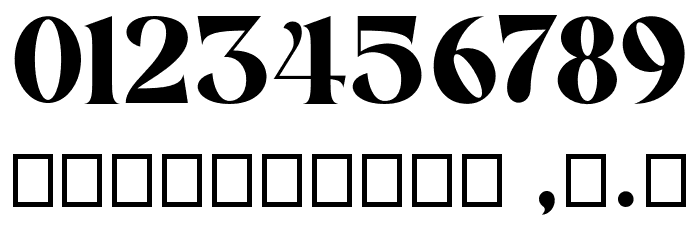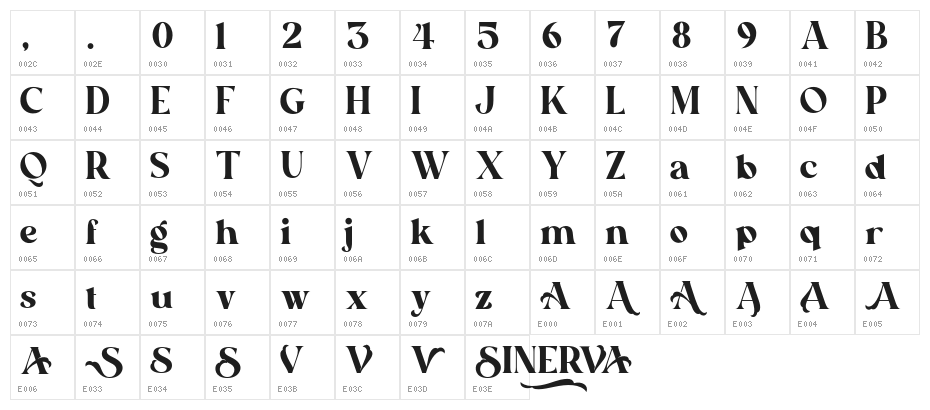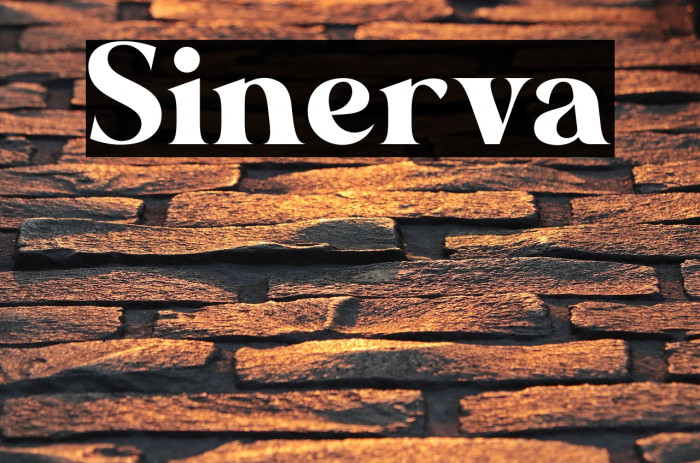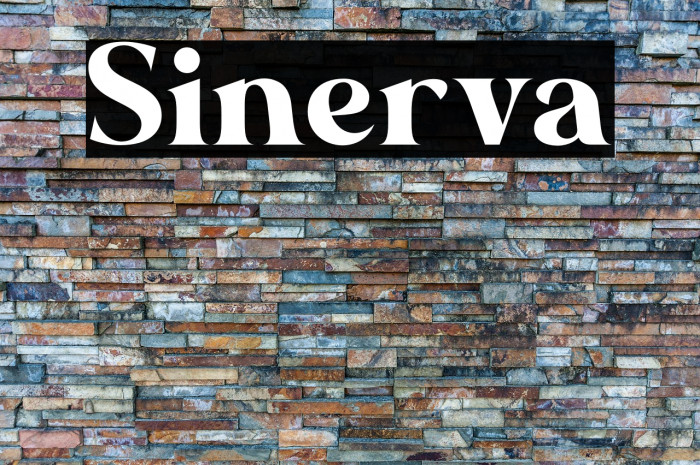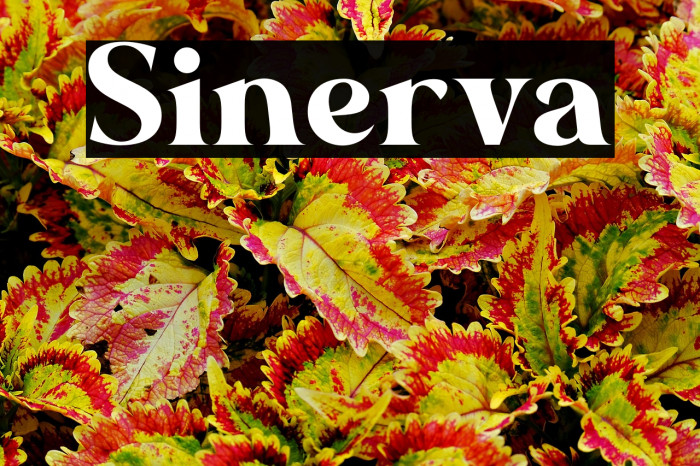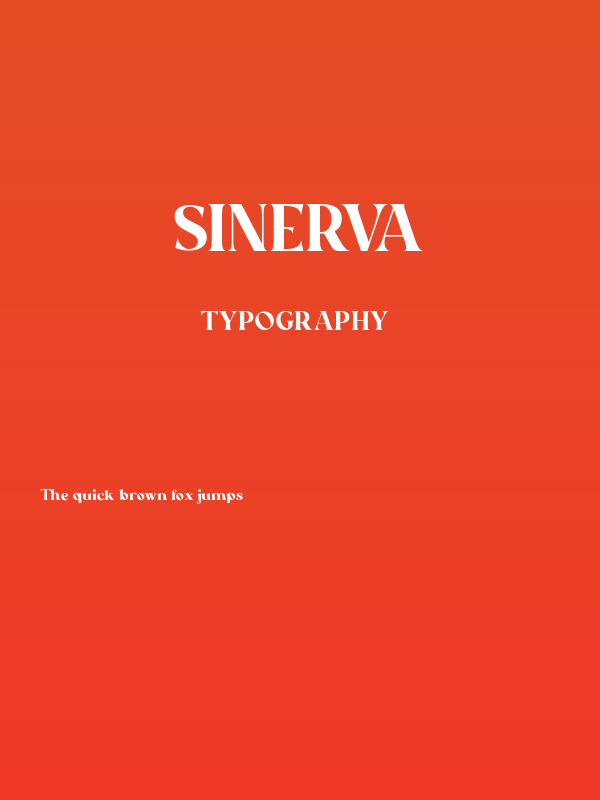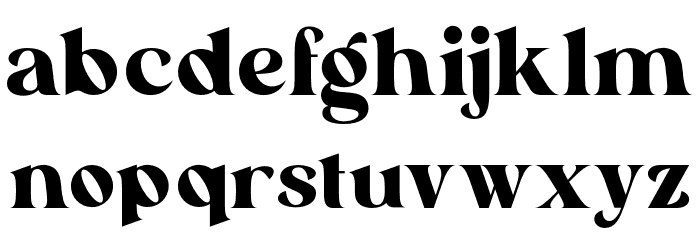
Sinerva Font
Sinerva Description
This font features a bold and dramatic serif style, characterized by its thick strokes and high contrast between thick and thin lines. The uppercase letters are particularly striking, with sharp serifs and a strong presence. The lowercase letters maintain a consistent style, with rounded edges that add a touch of elegance. The numerals are equally bold, ensuring they stand out in any design. The overall aesthetic is both classic and modern, making it versatile for various applications. The spacing between characters is tight, which enhances its bold appearance.
| Proposed Projects | Ideal for headlines, branding, editorial design, and luxury packaging. |